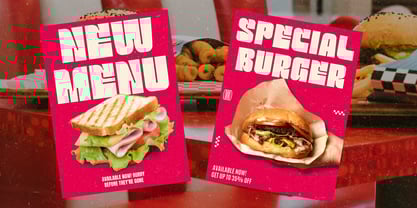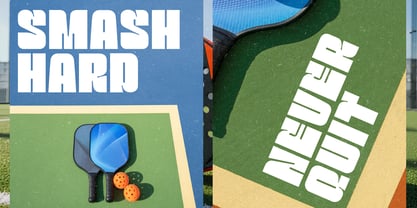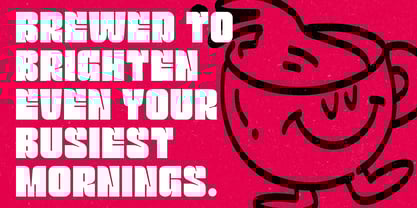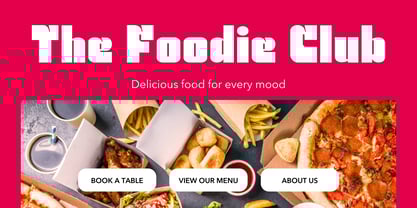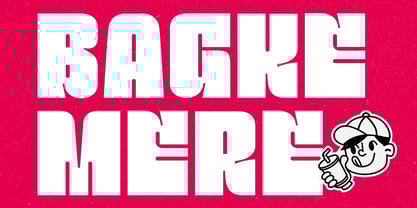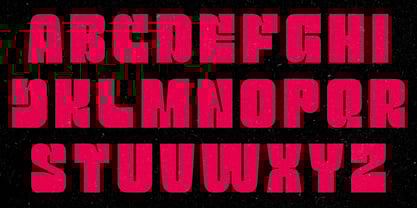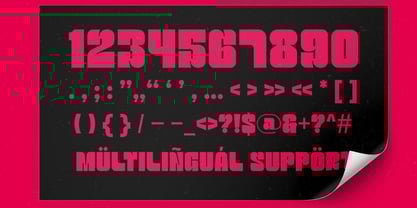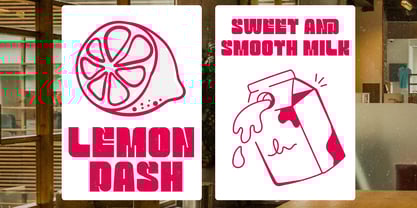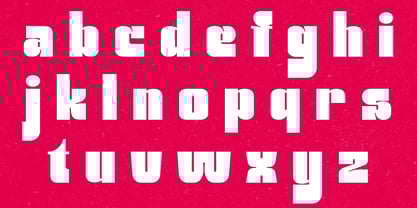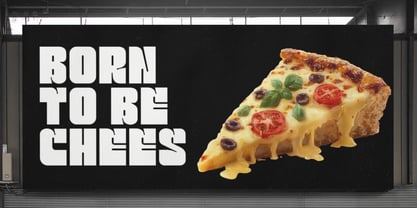
Bagke Mere
The Bagke Mere Font Family was designed by Randi Irvan and published by Rvandtype. Bagke Mere contains 2 styles.
Envision an urban landscape pulsating with a constant, unstoppable heartbeat. From the resonating scrape of skateboards sliding on concrete to the dazzling radiance of a midnight eatery, there lies a unique visual tempo that gives life to the city streets. Presenting BAGKE MERE, the rhythm that echoes within this vibrant urban symphony. It’s far more than just a typeface—it’s a bold statement etched into pixels. The design embodies the unfiltered vigor of the city, an expression of its dynamic culture. BAGKE MERE does not merely wish to be seen—it compels recognition. The structure of this typeface mirrors the architectural marvel of a towering skyscraper: unyielding, imposing, and undeniably evocative.